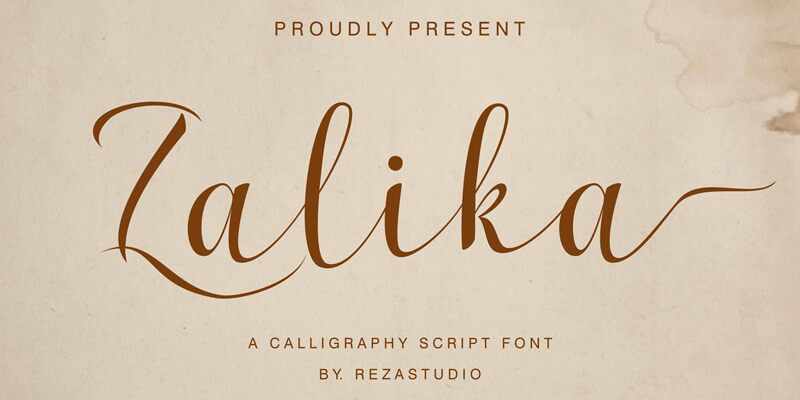
Zalika is a beautiful handwritten font that has charmingly arched letters. This font offers several modern swirls which will make your work look elegant, perfect, and sweet, and several alternatives that will allow you to improve your writing. Masterfully designed to become a true favorite, this font has the potential to bring each of your creative ideas to the highest level!
Zalika